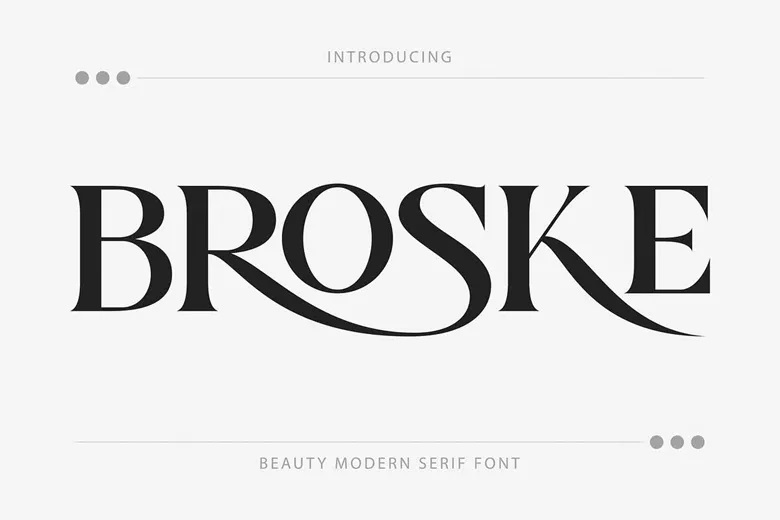
Broske Font
Broske Font is a modern and luxury serif look. With its clean lines and simple design, Broske will give a elegant and sophisticated feel to your needs such as websites, logos, branding designs, social media feel-good quotes and sayings, wedding invitations and stationery, magazines, and much more!
Broske comes with a beautiful and elegant set of capital letters A to Z, and it also has a special binding, so Broske is a versatile font that can be used for any project or job you plan.
Broske Serif Font